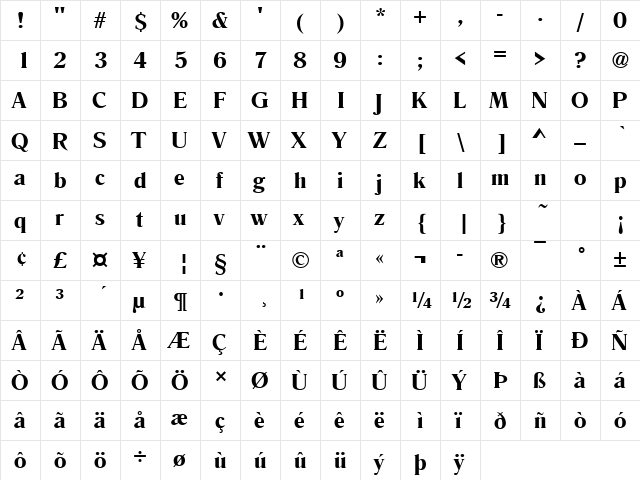
RomanaTDem Regular Font Preview
RomanaTDem Regular
Design Context for RomanaTDem Typeface
RomanaTDem is a composed and adaptable typeface that performs quietly and consistently across a wide range of design contexts.